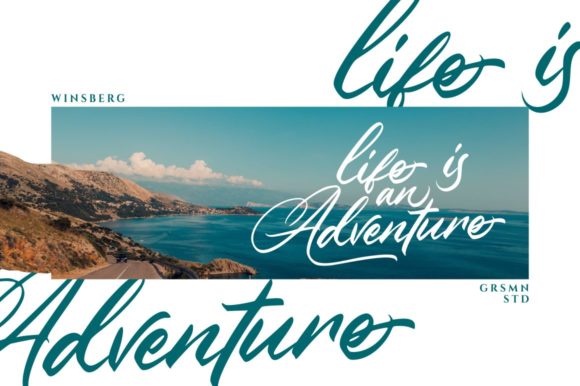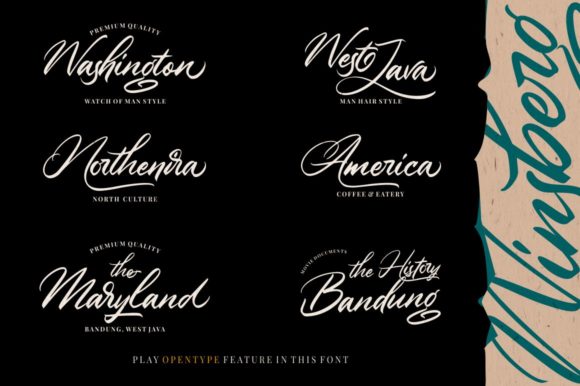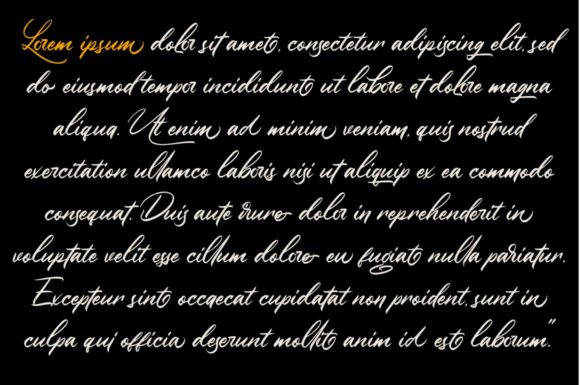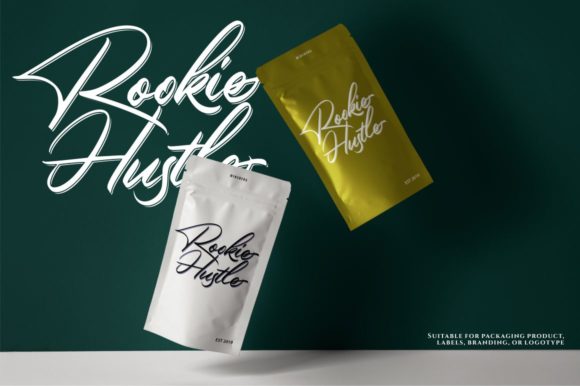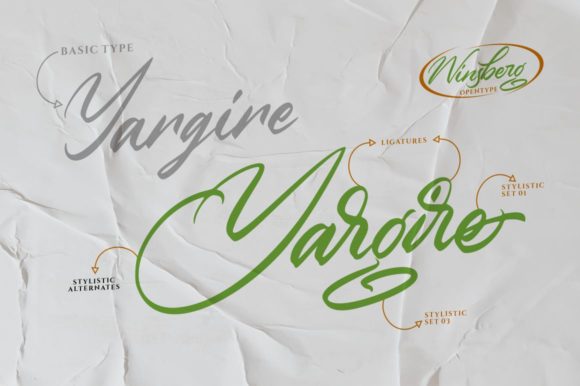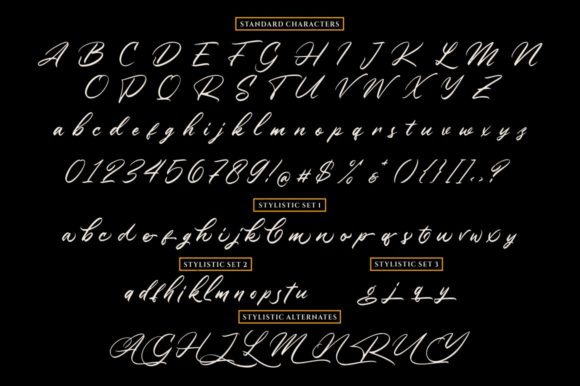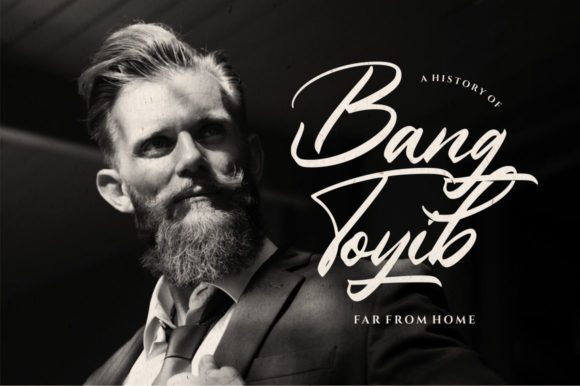
Winsberg Font
About Winsberg Font
Winsberg is made natural handwritten with the bold swashes. It will add an adventurous and classic feel to any creative idea!